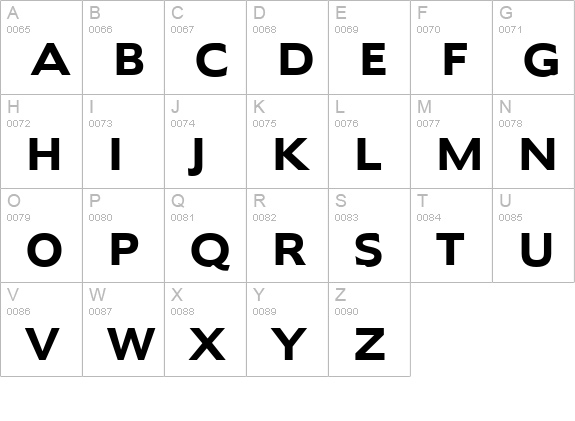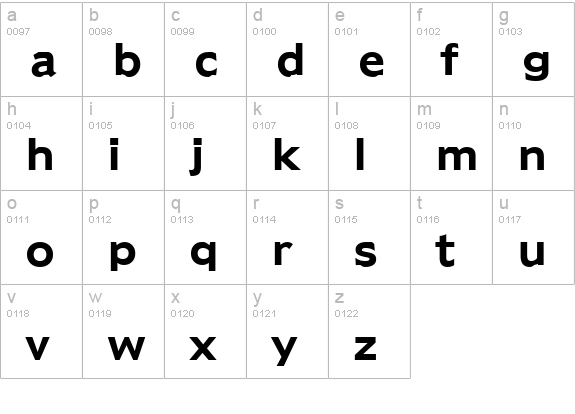
Adams Bold is a strong, high-contrast variant in the Adams typeface family \xE2\x80\x94 well suited to headlines, attention-grabbing titles, and strong calls-to-action.
Adams Bold font is a modern and versatile typeface that exudes confidence and strength. With its bold and impactful design, Adams Bold is perfect for making a statement in any project or design. This highly legible font is ideal for headlines, titles, and branding, adding a touch of sophistication and elegance to your work. Best of all, Adams Bold is available for free download at FontsMarket.com. This means you can easily access this premium font without any cost, making it a valuable addition to your font library. Whether you're a designer, creator, or enthusiast, Adams Bold font offers endless possibilities for enhancing your projects with its striking and bold aesthetic. Download Adams Bold today and elevate your designs to the next level!